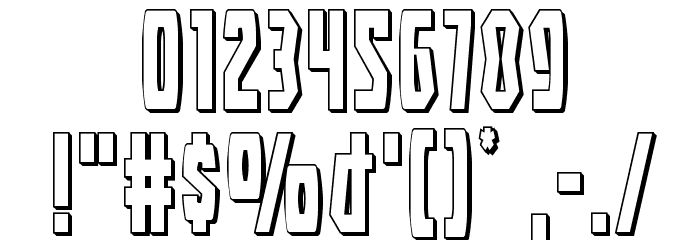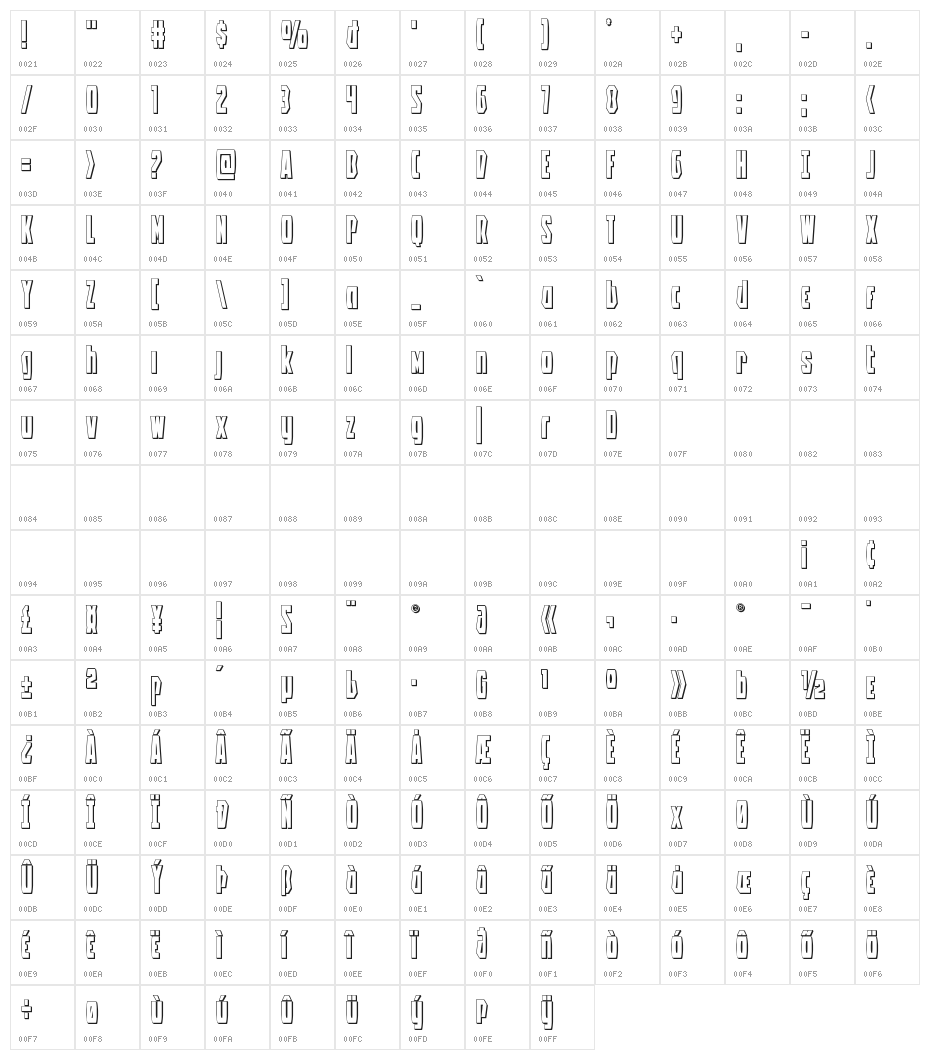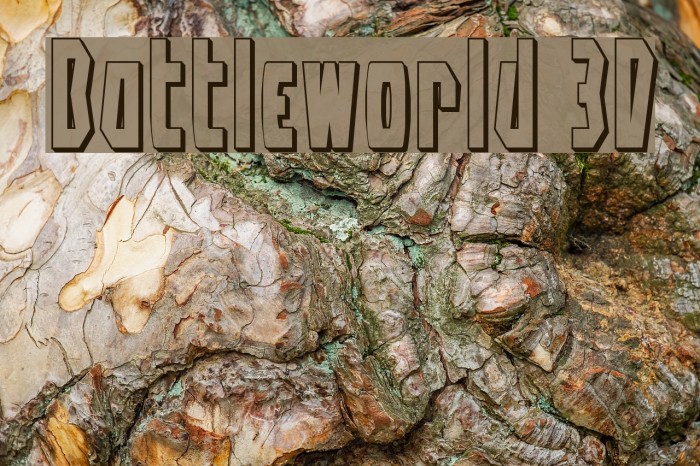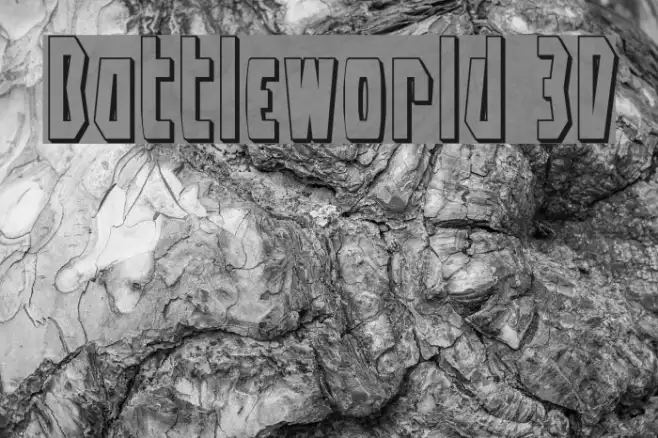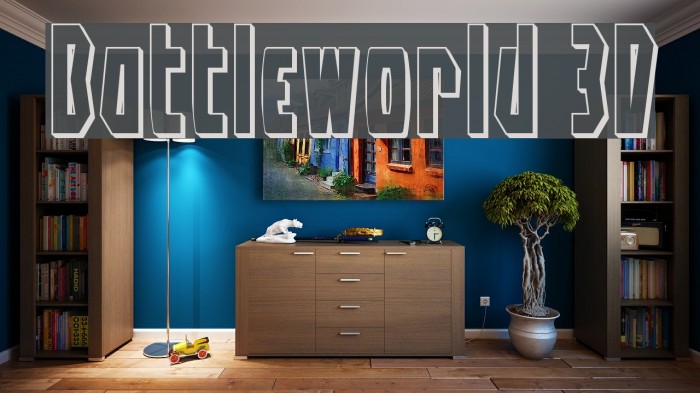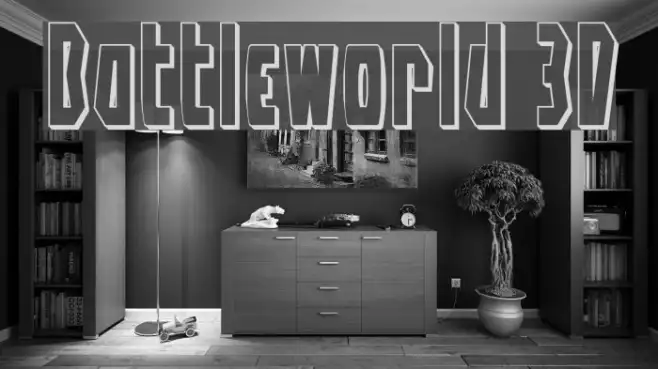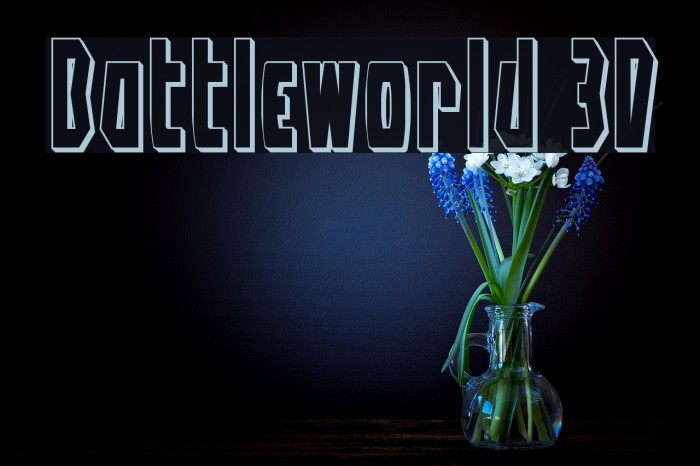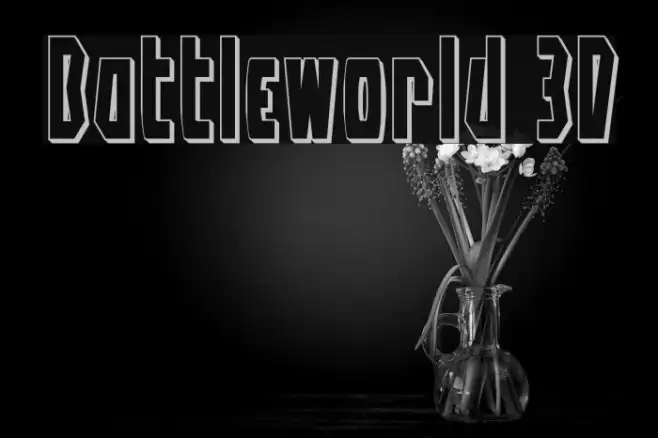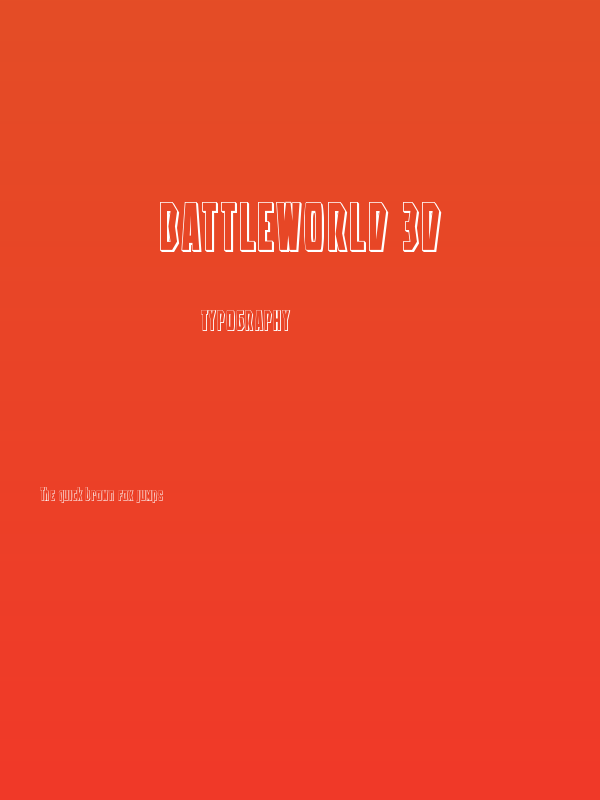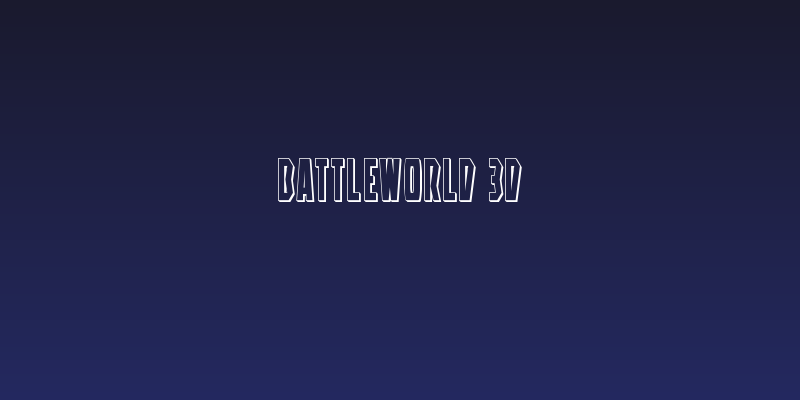
Battleworld 3D Font
Battleworld 3D Description
This font features a bold, three-dimensional appearance with a strong, geometric structure. The characters are outlined, giving them a distinct, shadowed effect that adds depth and dimension. The uppercase letters are angular and sharp, while the lowercase letters maintain a consistent style, offering a cohesive look across the alphabet. The numbers and special characters follow the same design principles, ensuring uniformity. This font is highly stylized, making it ideal for attention-grabbing designs.